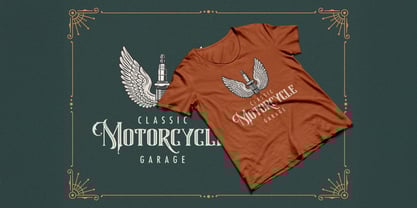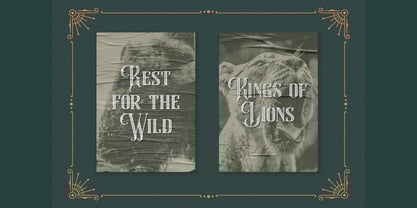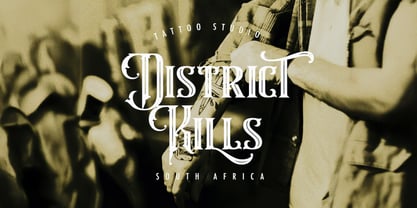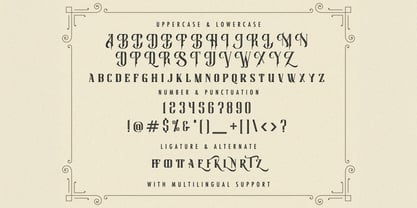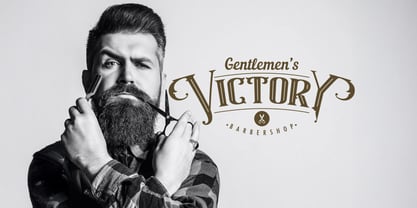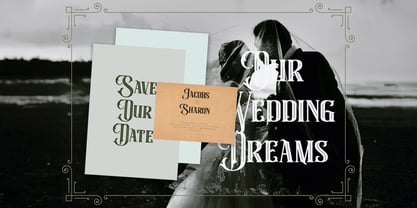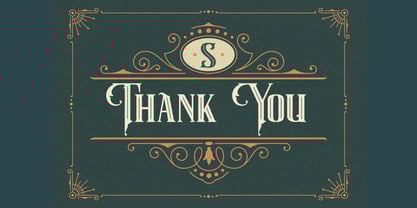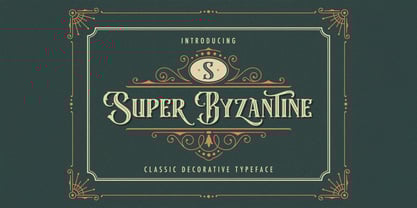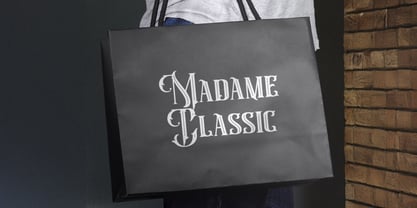
Super Byzantine
by Stringlabs Creative Studio
The Super Byzantine Font Family was designed by Virgiawan Listanto and published by Stringlabs Creative Studio. Super Byzantine contains 1 styles. More about this family
Super Byzantine is a decorative serif font that combines classic elegance with bold, artistic flair. Designed to capture attention, this unique typeface features intricate details and dramatic curves, perfect for creating standout designs with a touch of luxury and historical charm.
Designers: Virgiawan Listanto
Foundry: Stringlabs Creative Studio